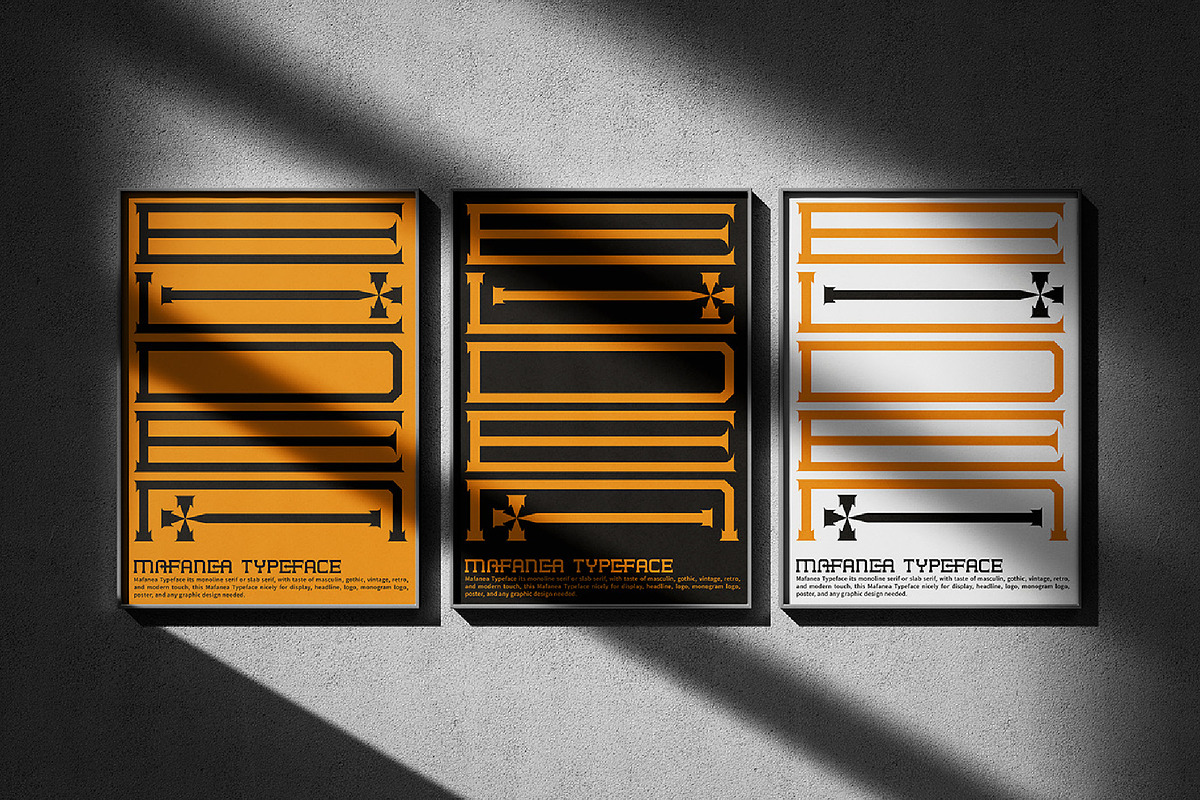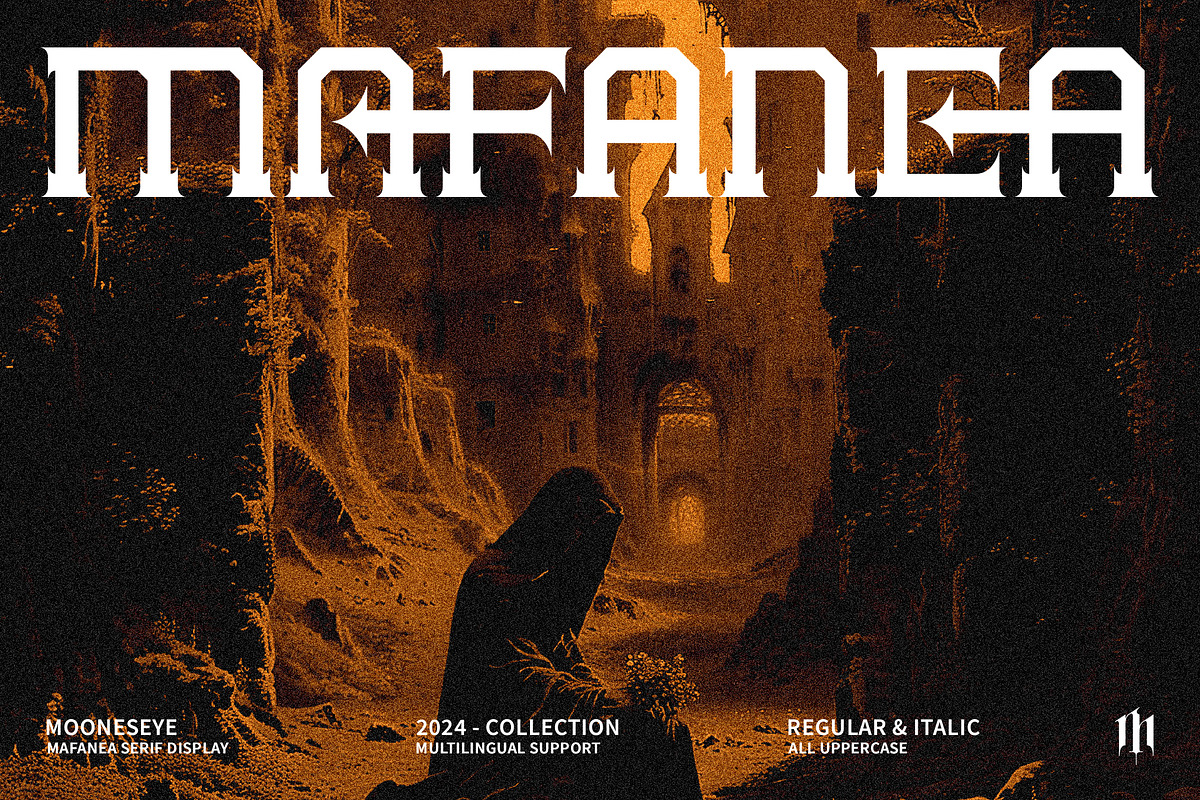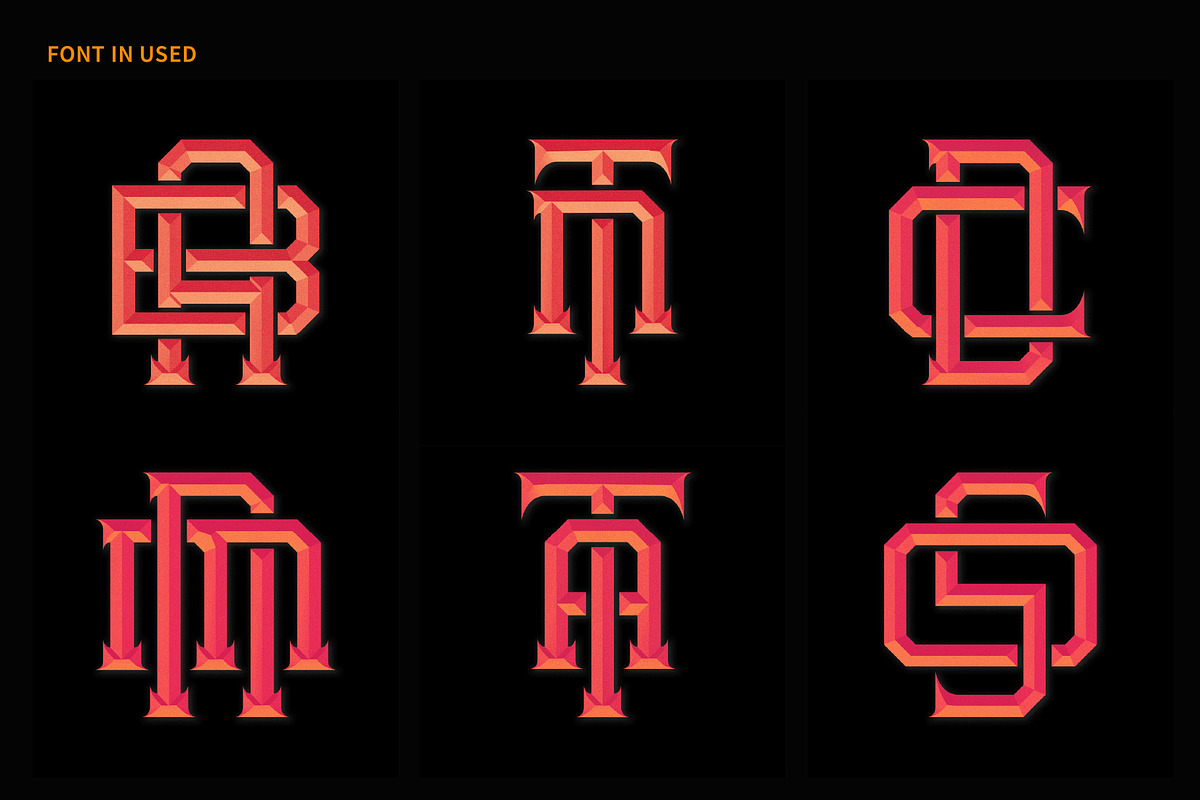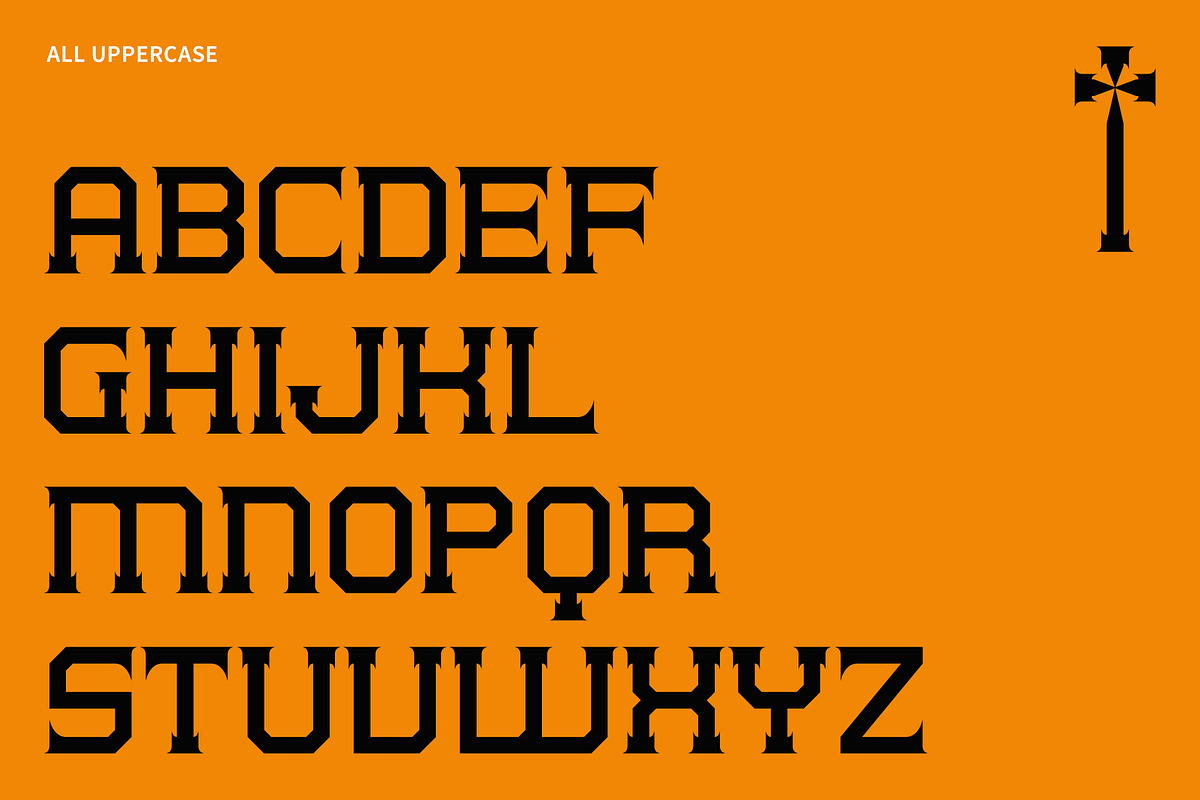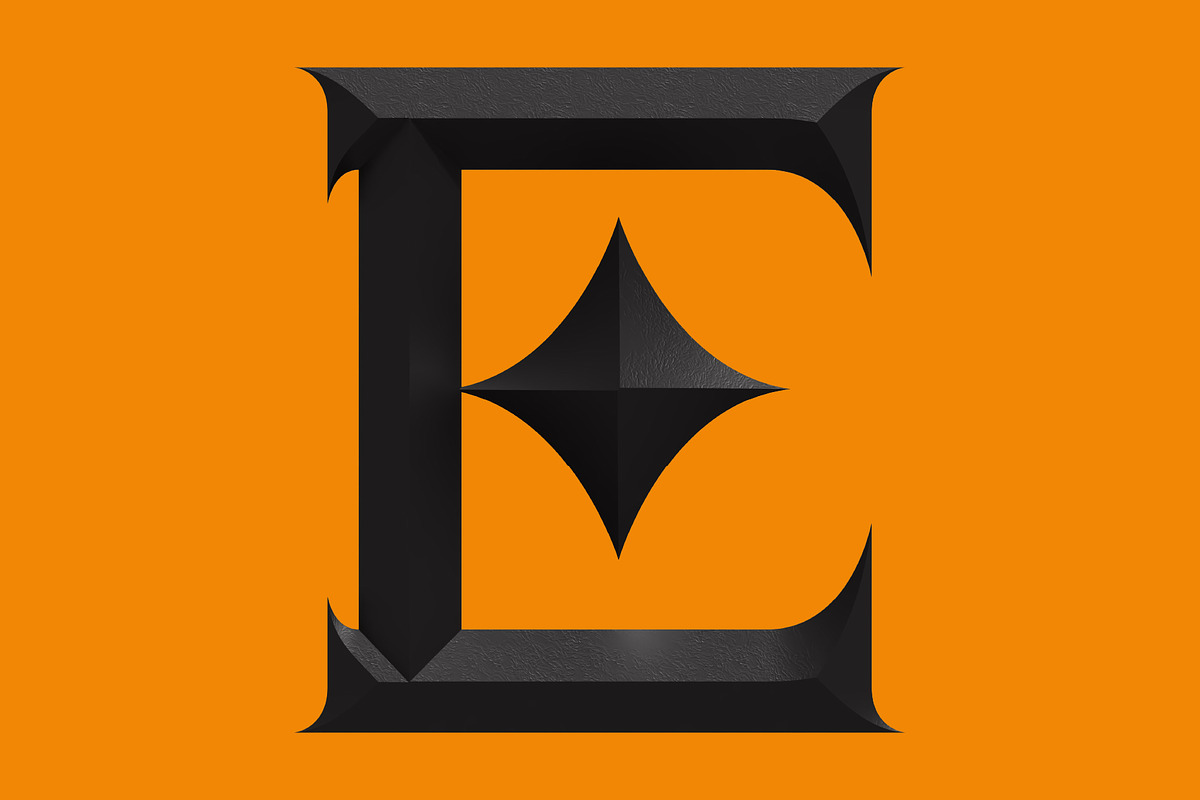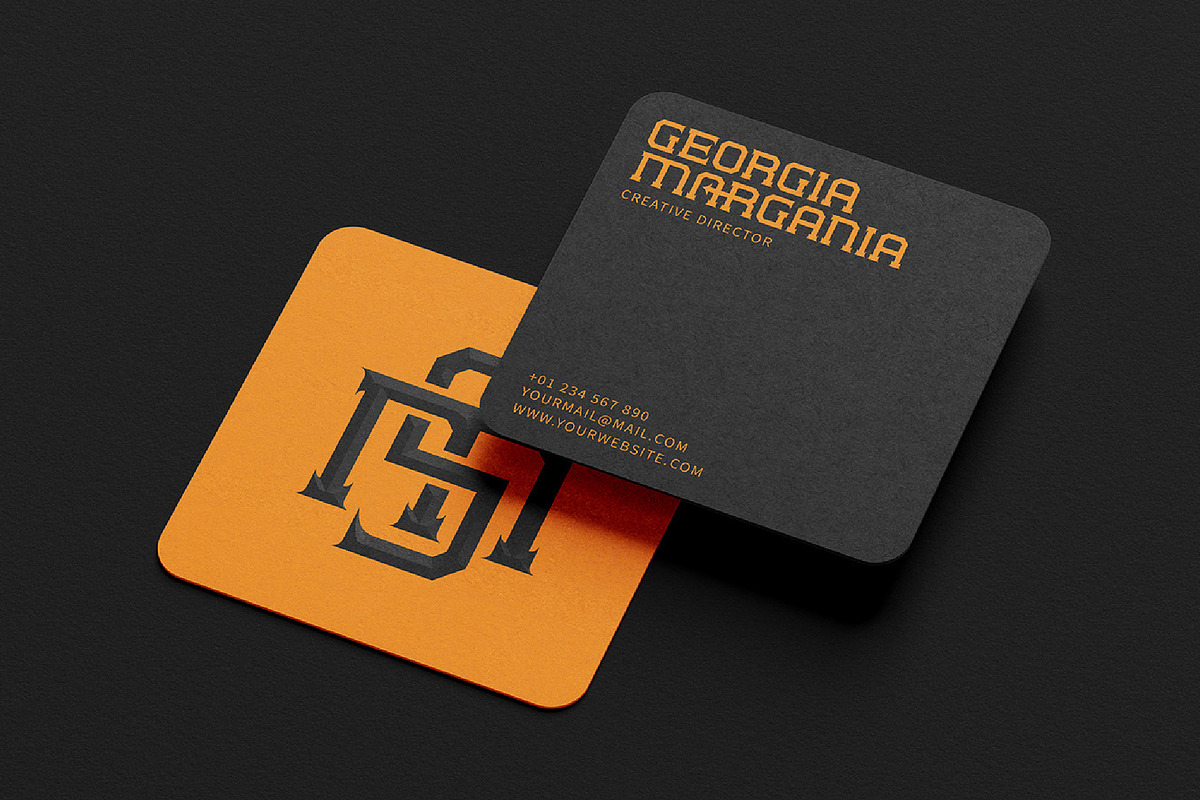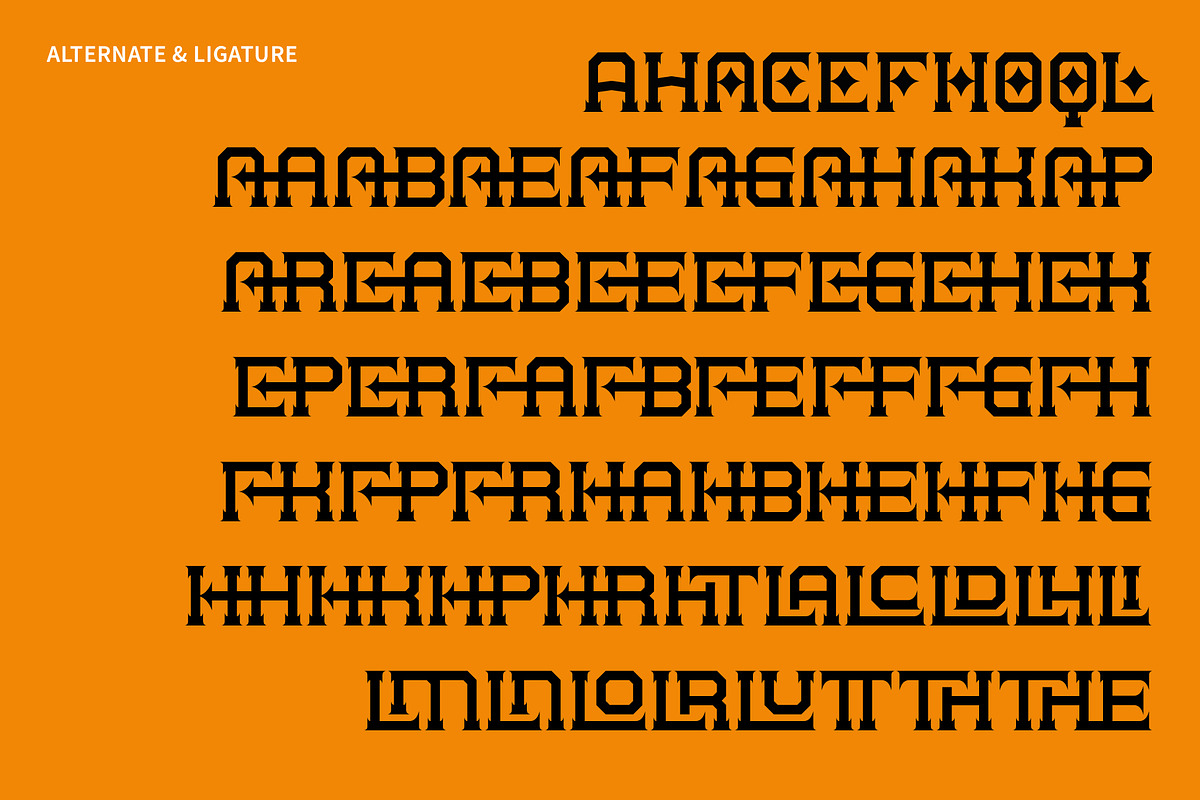
Mafanea - Slab Serif Display Font
Unleash a powerful statement with Mafanea Mono Serif Display, a striking all-uppercase font designed to command attention.
Mafanea is not just a typeface; it's a bold architectural statement for your designs. With its unique blend of strong monospaced characteristics and sharp, confident serifs, Mafanea delivers an unforgettable visual impact. Each character is meticulously crafted to exude strength, modernity, and a distinctive edge, making it the perfect choice for projects that demand a memorable presence.